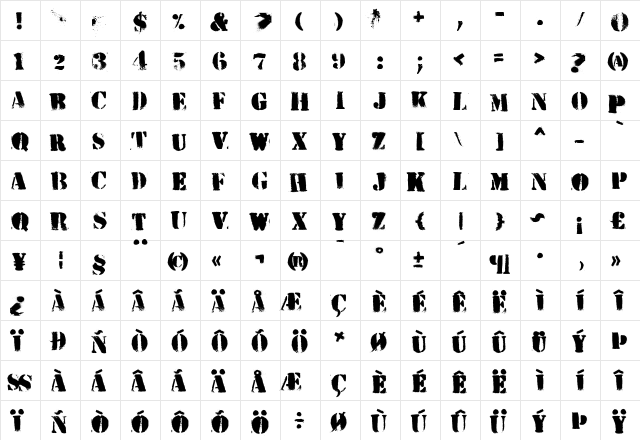
HVD Peace Regular
| Designer | Hannes von Dڨren |
Design Context for HVD Peace Typeface
HVD Peace is a composed and adaptable typeface that performs quietly and consistently across a wide range of design contexts.